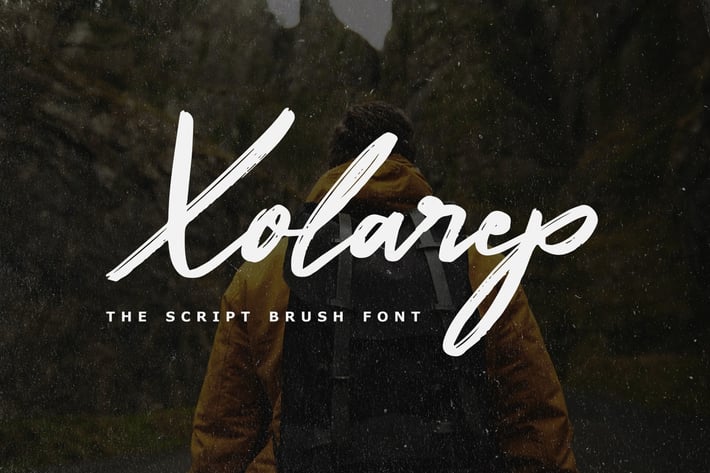
Xolarep - The Script Brush Font
Introducing Xolarep - The Script Brush Font. It comes with an elegant and modern style which is perfect to make any design stand out! This font is perfect for branding, wedding invites, magazines, mugs, business cards, quotes, posters, and more.
XolarepType Features:
- Numerals & Punctuations
- Suitable for Headlines, Logotypes, Signs, Posters, Letterhead, T-Shirt and many more.
- Support Western Europe Language